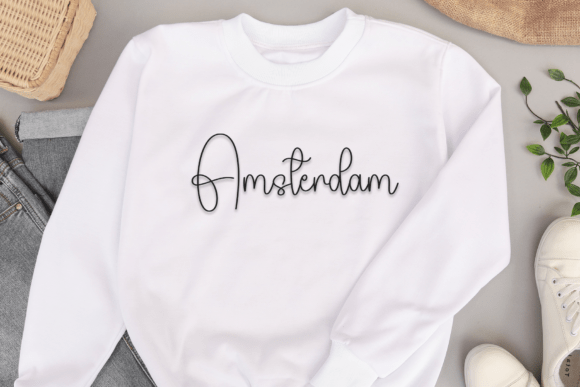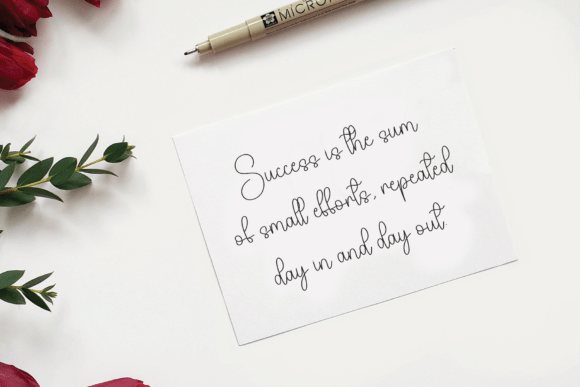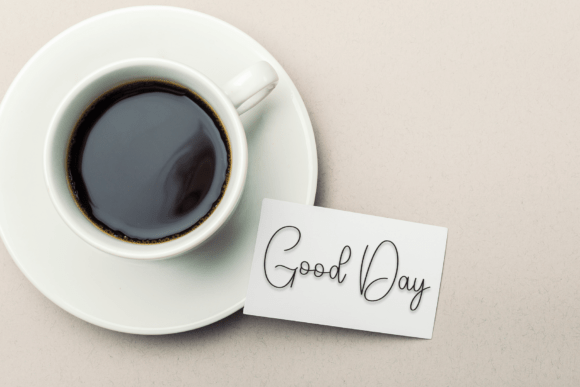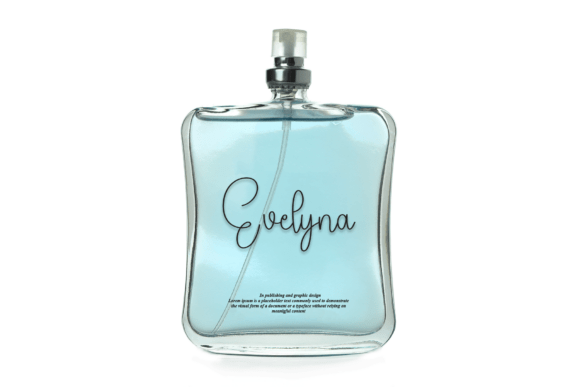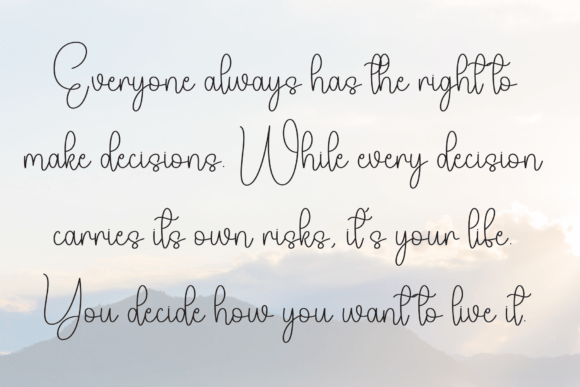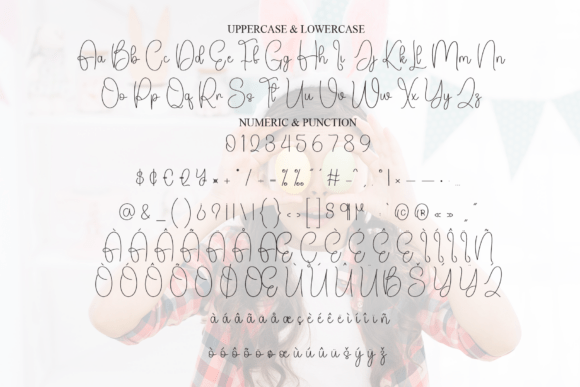
Bunnyday Font: The Charming Handwritten Display Font for Your Design Needs
Are you looking for a font that adds a touch of sweetness and warmth to your design projects? Look no further than the Bunnyday Font, a delightful handwritten display font that is sure to bring a playful sprinkle of fun to your creations. With its charming allure and lighthearted vibe, this font is perfect for designers and crafters who want to create pieces that dance with joy and radiate friendly vibes.
The Perfect Font for Heartfelt Designs
The Bunnyday Font is a dream choice for designers who want to create heartfelt wedding invitations, greeting cards, or any other design project that requires a personal touch. This font is carefully crafted to breathe sweetness and warmth into every curve, making it perfect for adding a touch of whimsy and romance to your designs.
Whether you’re a professional designer or a crafter, the Bunnyday Font is a versatile tool that can be used to create a wide range of designs. From playful party invitations to heartfelt thank-you cards, this font is sure to add a touch of magic to your creations.
A Delightful Playing Field for Creativity
One of the best things about the Bunnyday Font is its ability to invite creativity and inspire designers to try new things. With its unique and charming design, this font provides a delightful playing field for designers to experiment with different styles and techniques.
Whether you’re looking to create a bold and eye-catching design or a soft and subtle one, the Bunnyday Font is the perfect tool for the job. Its friendly and approachable vibe makes it easy to pair with other design elements, such as colors, textures, and graphics, to create a cohesive and visually appealing design.
Key Features of the Bunnyday Font
So, what makes the Bunnyday Font so special? Here are some of its key features:
- Handwritten display font: The Bunnyday Font is a carefully crafted handwritten display font that is designed to add a touch of sweetness and warmth to your designs.
- Playful and lighthearted: This font is perfect for designers who want to create playful and lighthearted designs that radiate friendly vibes.
- Perfect for heartfelt designs: The Bunnyday Font is a dream choice for designers who want to create heartfelt wedding invitations, greeting cards, or any other design project that requires a personal touch.
- Versatile: This font can be used to create a wide range of designs, from playful party invitations to heartfelt thank-you cards.
Tips for Using the Bunnyday Font
Here are some tips for using the Bunnyday Font in your design projects:
- Pair it with other design elements: The Bunnyday Font is easy to pair with other design elements, such as colors, textures, and graphics, to create a cohesive and visually appealing design.
- Experiment with different styles: Don’t be afraid to experiment with different styles and techniques when using the Bunnyday Font. Its unique design makes it easy to try new things and create something truly unique.
- Use it for headlines and titles: The Bunnyday Font is perfect for headlines and titles, where its playful and lighthearted vibe can really shine.
In conclusion, the Bunnyday Font is a charming handwritten display font that is sure to bring a playful sprinkle of fun to your design projects. With its sweet and warm design, this font is perfect for designers and crafters who want to create heartfelt and whimsical designs that radiate friendly vibes.
Whether you’re a professional designer or a crafter, the Bunnyday Font is a versatile tool that can be used to create a wide range of designs. So why not give it a try and see what amazing creations you can come up with?